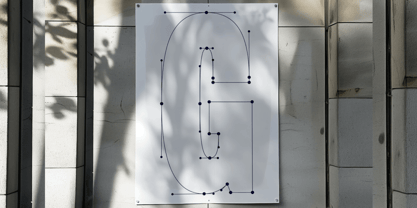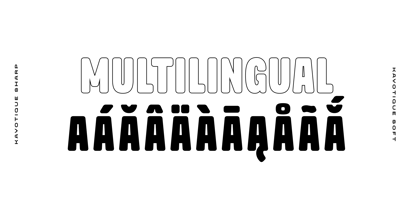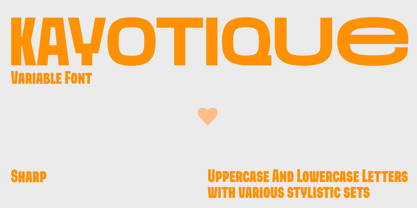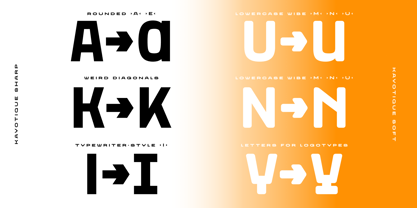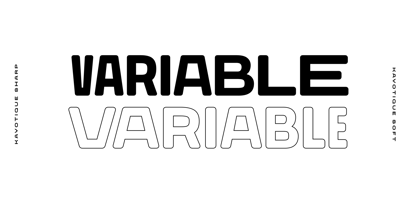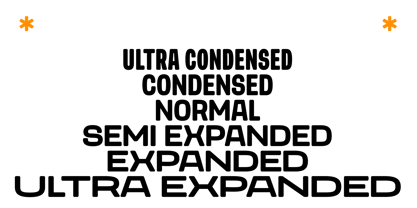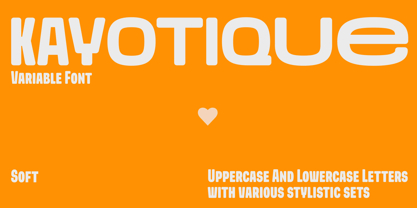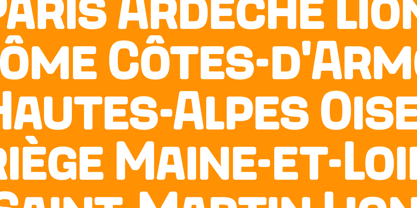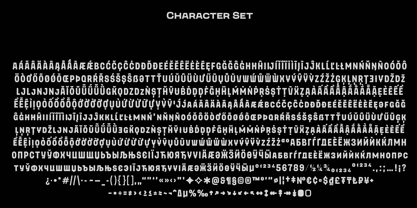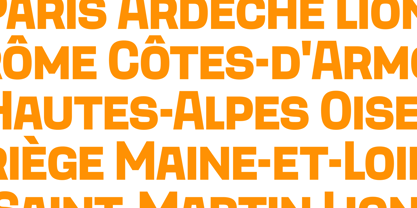
Kayotique
by ParaType
The Kayotique Font Family was designed by Nikolay Nedashkovsky and published by ParaType. Kayotique contains 14 styles and family package options.
Kayotique is a retrofuturistic typeface with strong personality and variable width, designed for expressive branding, headings, and packaging. The typeface comes in two distinctive self-explanatory styles — Sharp and Soft, which can be combined freely. Each style includes a range of 6 widths, all combined into a variable font. Designed by Nikolay Nedashkovsky. Released by Paratype in 2025.